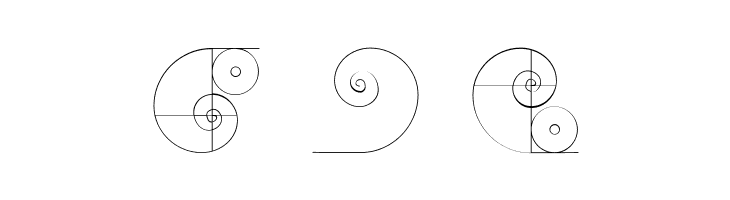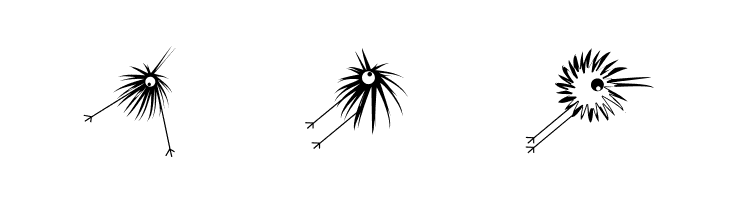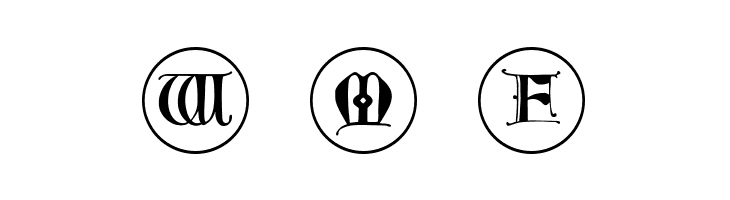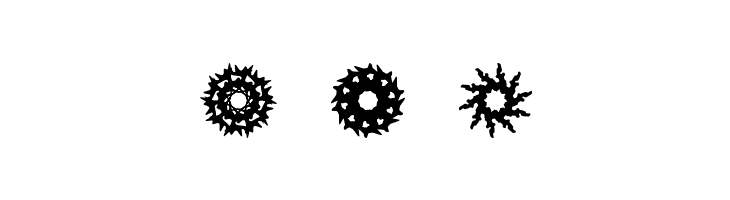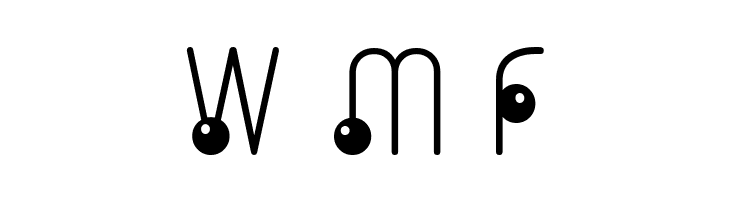
A modern, fragmented font with bold, circular designs.
Abstract, circular icons with line-drawn faces and animals.
Ornate, pictorial font with zodiac-themed illustrations in circular frames.
A decorative font inspired by nautilus shells, featuring intricate spiral and circular designs.
A whimsical, bird-themed decorative font with spiky, circular designs.
A whimsical, eye-themed decorative font with circular illustrated glyphs.
A decorative symbol set featuring abstract, circular, and geometric marks.
A bold, textured font with circular backgrounds and a woodcut style.
A decorative font with fragmented characters in bold circular frames.
A decorative Fraktur-style font with characters encased in bold circles.
A collection of festive, circular icons with Christmas-themed illustrations.
Playful, animal-themed decorative font with circular anteater motifs.
A decorative font with italicized characters encased in bold circles.
A modern, circular font with geometric and decorative elements.
A monospaced font with bold, circular backgrounds for uppercase letters and a mix of weights.
A whimsical, electronic-themed decorative font with circuit-like characters.
A modern, circular-enclosed font with high contrast and artistic flair.
The image displays abstract circular designs, not a font.
Abstract circular symbols with intricate line patterns.
An ornate, decorative font with intricate flourishes and circular enclosures.
A decorative, medieval-inspired font with ornate uppercase letters encased in circles.
A decorative font featuring artistic, tribal-inspired illustrations within circular shapes.
Whimsical, abstract illustrated font with playful circular icons.
Abstract, hand-drawn circular symbols with intricate white linework.
A decorative and abstract font with characters in circular shapes, featuring bold and artistic designs.
An abstract, artistic font with characters enclosed in circular shapes, featuring unique geometric and illustrative designs.
A decorative and whimsical font with characters enclosed in circular discs, ideal for playful designs.
A geometric, abstract font with circular, artistic designs inspired by Suprematism.
A playful, dotted font with interconnected circular shapes creating a whimsical appearance.